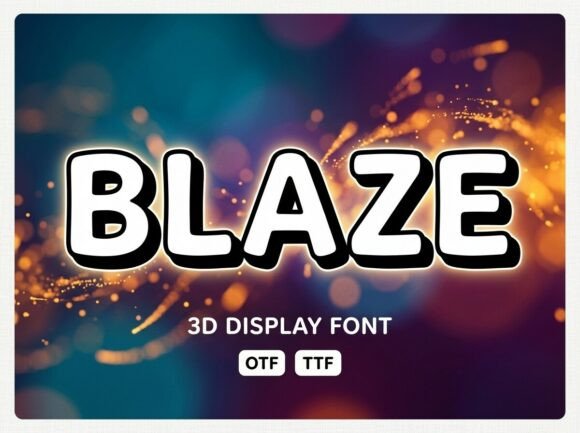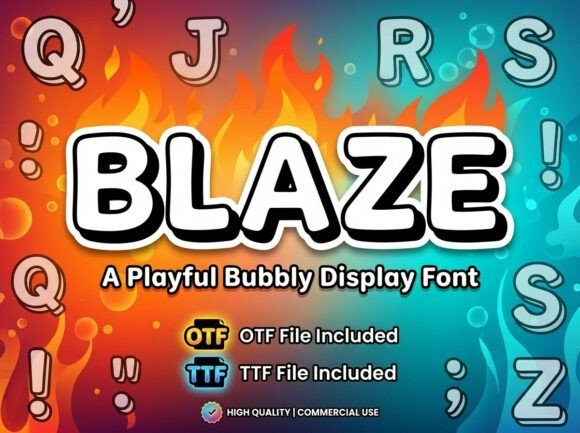
Ignite Your Design with Blaze Font
You know that feeling when you’re brainstorming a new project, and suddenly, the perfect idea strikes you? The excitement is palpable, and you can’t wait to bring your vision to life. For designers, this moment is often the spark that sets their creativity ablaze. That’s exactly what Blaze Font is designed to do – ignite your design and make it unforgettable.
As a stunning decorative display font, Blaze Font is perfect for creators who want to break away from the ordinary. Its unique artistic elements and strong visual personality make it a valuable addition to any designer’s toolkit. Whether you’re working on bold headlines, artistic logos, or creative packaging, Blaze Font will help you achieve a professional and polished finish that’s sure to impress.
Blaze Font Key Features
- Font Family: Blaze Font is a modern sans-serif font family designed for digital use.
- Size: The font family includes 6 weights: Thin, Light, Regular, Medium, Bold, and Black.
- Unique Characteristics: Blaze Font features a unique blend of modern and industrial design elements, with a focus on legibility and readability in digital environments.
Blaze Font Review
When I first stumbled upon the Blaze Font, I was immediately drawn to its energetic and dynamic vibe ✨. The font’s bold and geometric shapes make it perfect for headings and titles, and the subtle texture adds a touch of sophistication. I also appreciate the wide range of weights and styles available, which makes it easy to customize to suit any design project.
- ⚠️ Readability at small font sizes can be a bit of an issue, especially in longer blocks of text.
- ⚠️ Some users may find the font’s boldness overwhelming, particularly in certain color combinations.
Overall, I’m a big fan of the Blaze Font and have enjoyed working with it ✨. While it may have some limitations, its strengths far outweigh its weaknesses. If you’re looking for a bold and eye-catching font, the Blaze Font is definitely worth checking out.
Tips for Getting the Most Out of Blaze Font
To get the most out of Blaze Font, use it for:
- Modern and edgy designs
Remember to adjust the font size and style to suit your design needs.
Blaze Font is commonly used for:
- Music and entertainment brands
- Fashion and lifestyle designs
- Technology and gaming logos
Its bold and modern style makes it perfect for creating attention-grabbing designs.
Alternatives to Blaze Font
Rockwell Font
The Rockwell font is a classic serif font that is reminiscent of traditional typography. It is ideal for use in formal documents, magazines, and books where a professional and timeless look is desired.
Compared to Blaze Font, Rockwell has a more traditional feel and is often used for body text, whereas Blaze Font is often used for headings and titles.
The Playfair Display font is an elegant and luxurious serif font that is perfect for use in high-end branding, advertising, and editorial design. It is ideal for use in situations where a touch of sophistication and elegance is desired.
Compared to Blaze Font, Playfair Display has a more refined and luxurious feel, whereas Blaze Font is often used for more modern and edgy designs.
Athelas Font
The Athelas font is a modern and elegant serif font that is inspired by traditional typography. It is ideal for use in situations where a touch of sophistication and elegance is desired, but a more modern feel is also needed.